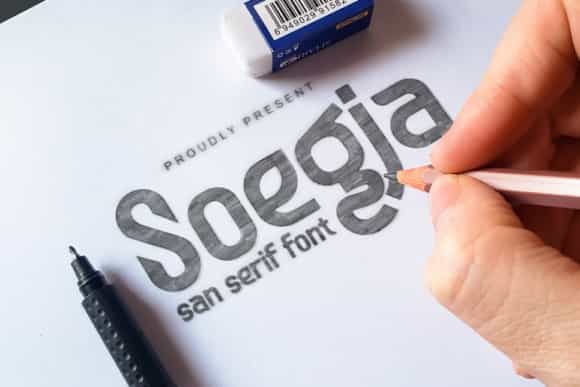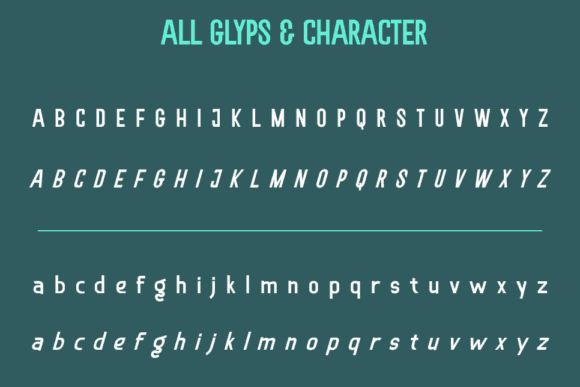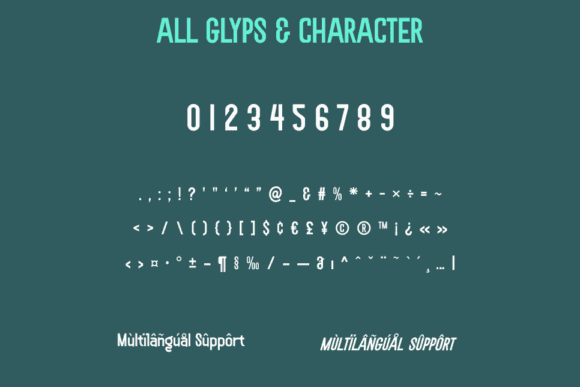
Soegja can be described as an elegant sans serif font with a contemporary and contemporary style. It’s versatility allows it to be used for a variety of design tasks either formal or informal. Be inspired by Soegja to make beautiful, authentic designs!